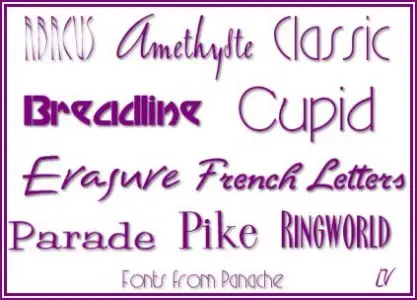
Panache Typography Fonts
Formed in 1990, Panache Typography features the work of award-winning designers Dave Farey and Richard Dawson. The elegant Amethyste Script™ font gives the illusion of connecting hand drawn lettering. The majority of Panache Typography’s 133 products are available in the PostScript format for Windows and Macintosh systems.